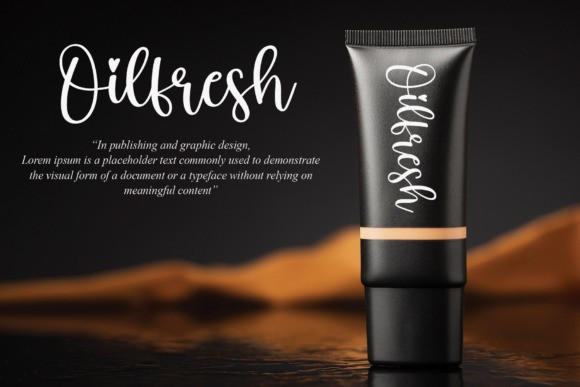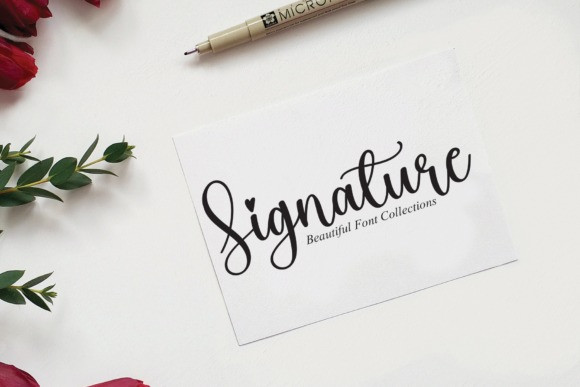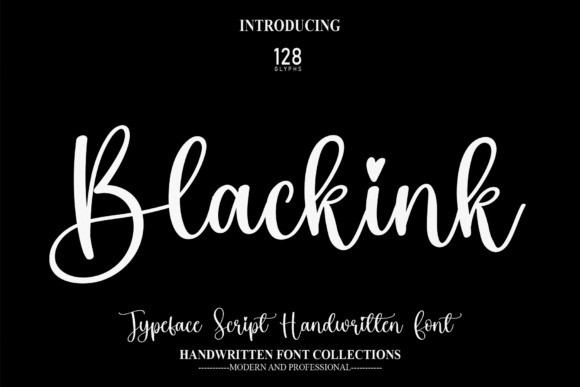
Blackink Script Font
Blackink Script Font, is a delicate, elegant and flowing handwritten font. It has beautiful and well balanced characters and as a result, it matches a wide pool of designs. Add it to your most creative ideas and notice how it makes them come alive!